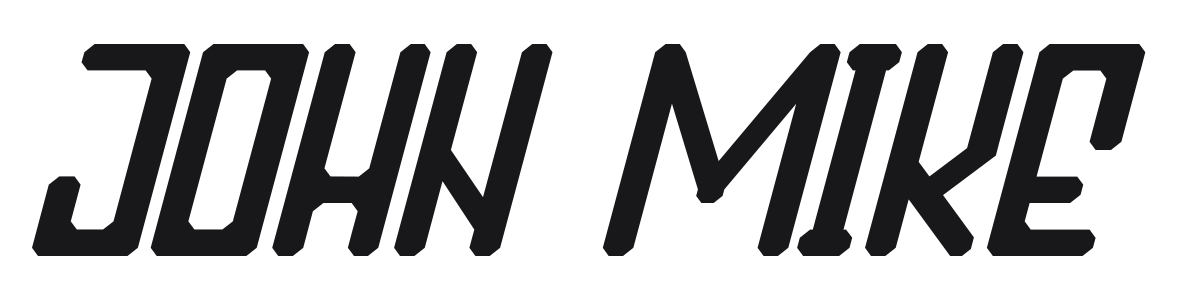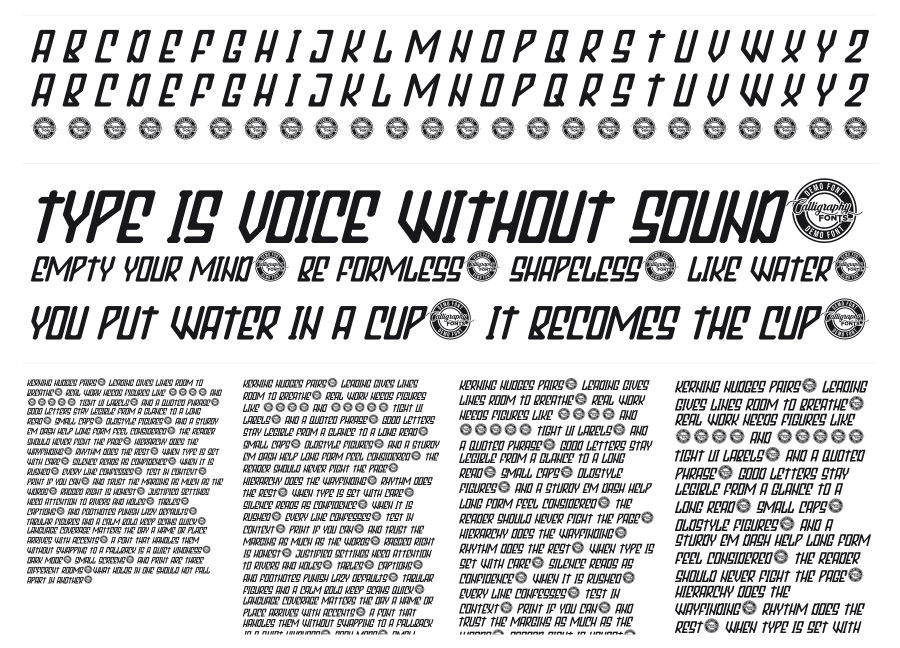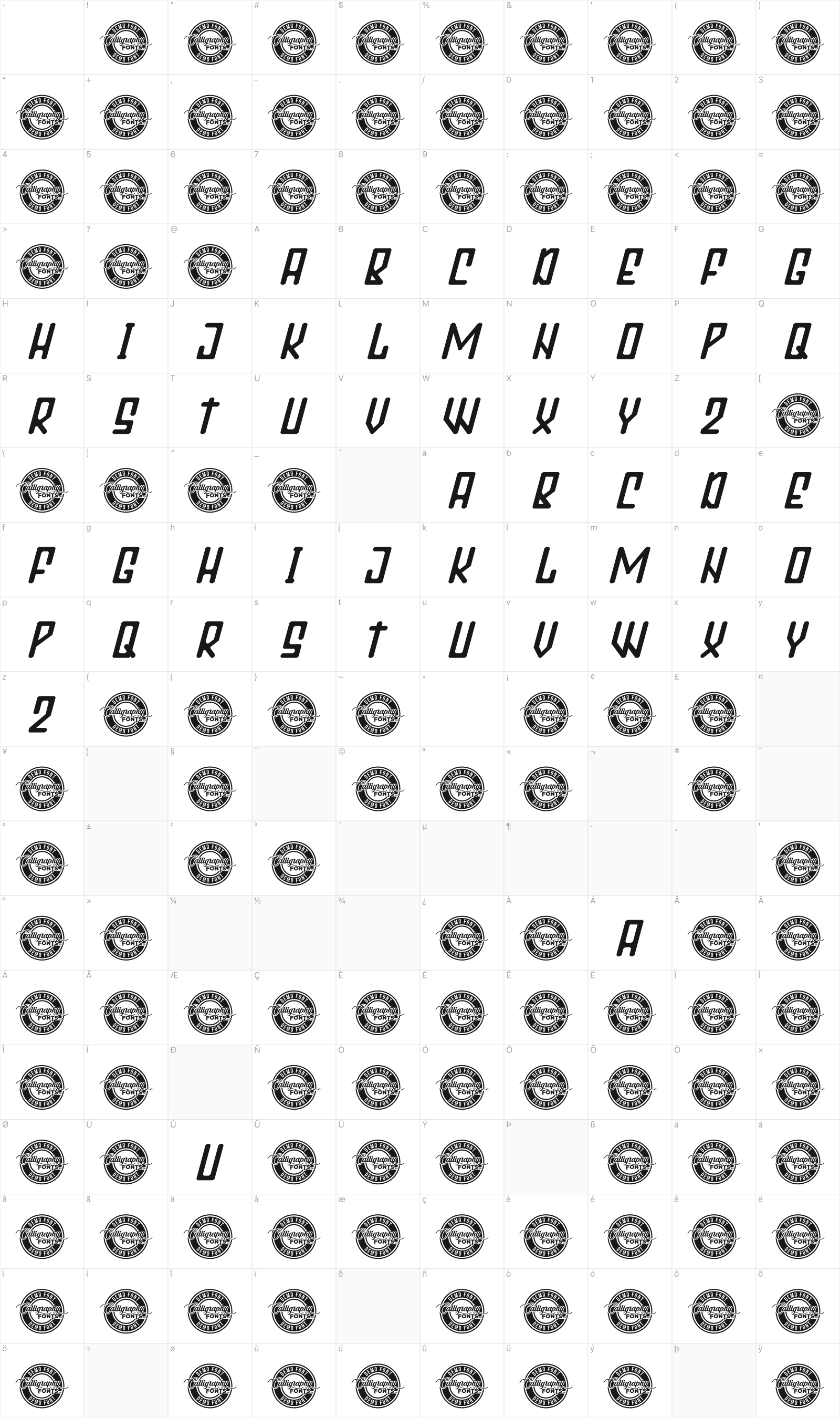
John Mike
John Mike is a heavy condensed italic display font built on bold geometric construction with flat-topped terminals and a sharp rightward lean. The thick, near-monoweight strokes and angular shapes draw from 1970s–80s sports and action typography. It carries real punch at large sizes and suits posters, titles, and identity work with attitude.